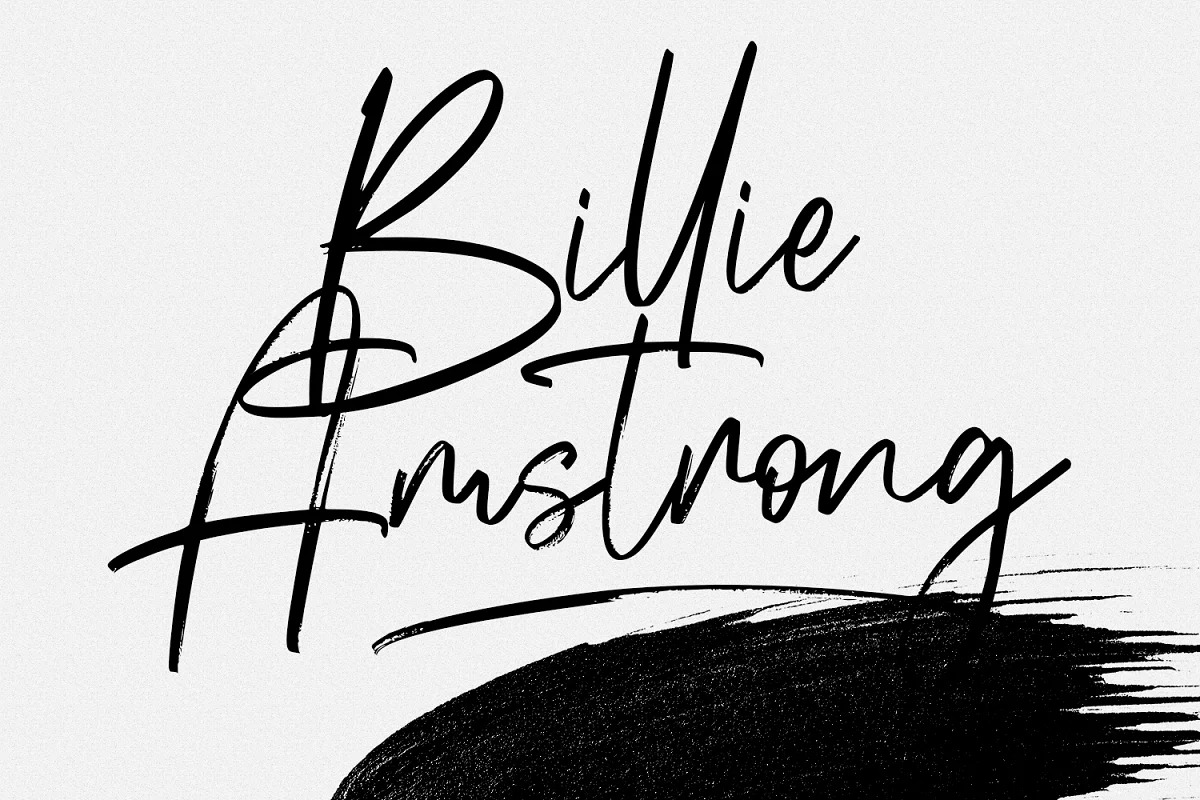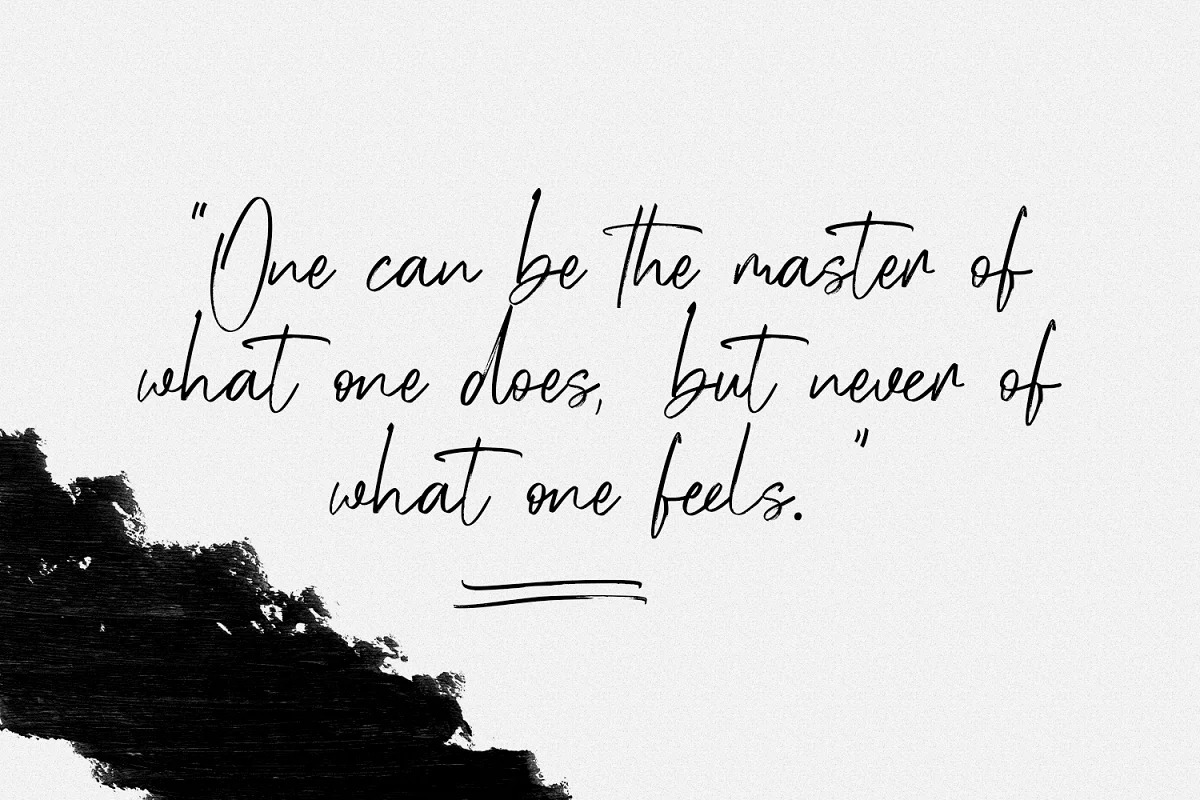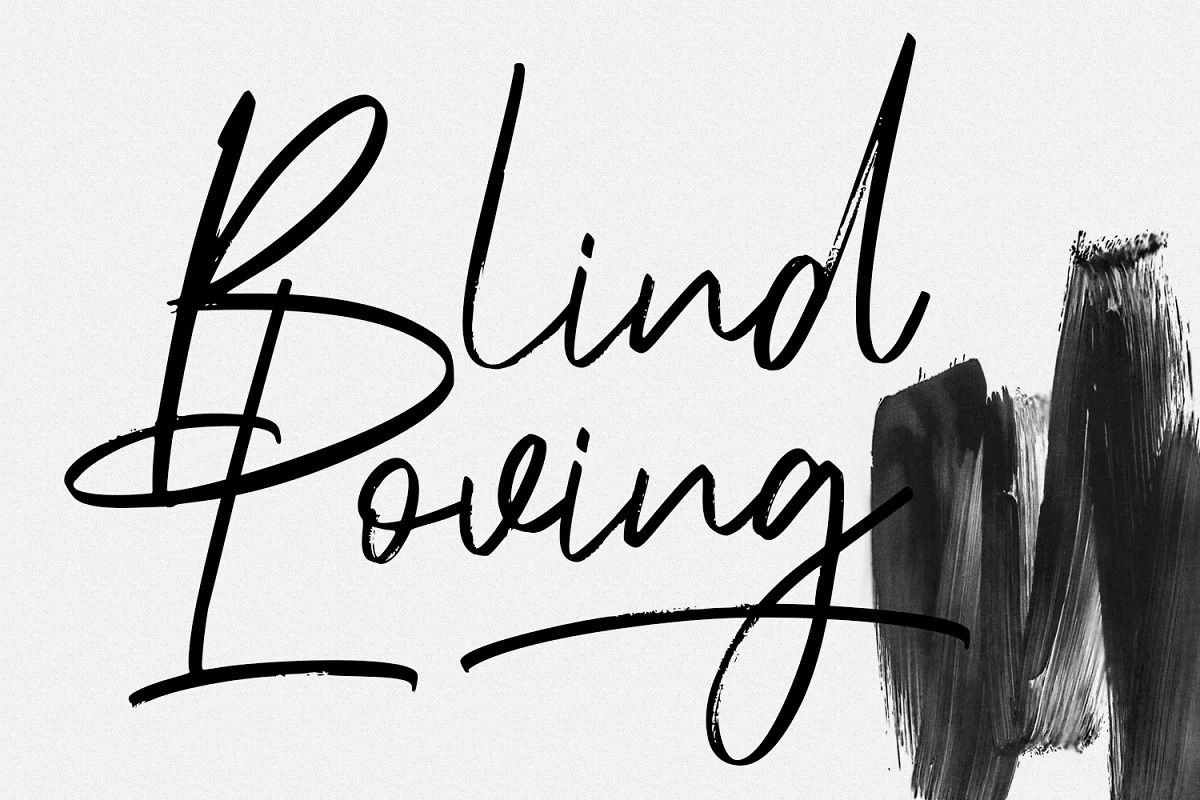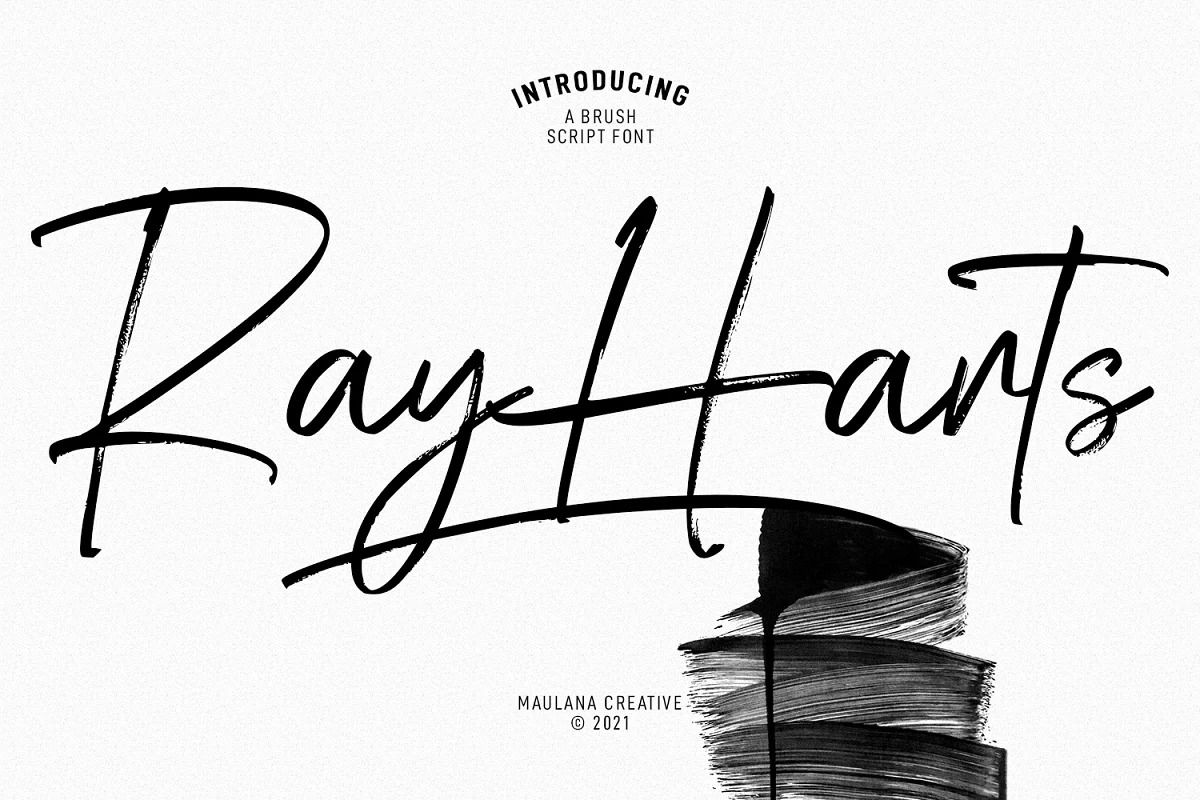
Ray Harts Font
Ray Harts Brush Font is brush typeface with a natural rough dry brush strokes, and the stroke of hand quickly. To give you an extra creative work. “Ray harts” font support multilingual more than 100+ language. This font is good for logo design, Social media, Movie Titles, Books Titles, a short text even a long text letter and good for your secondary text font with sans or serif. Make a stunning work with “Ray harts” font.